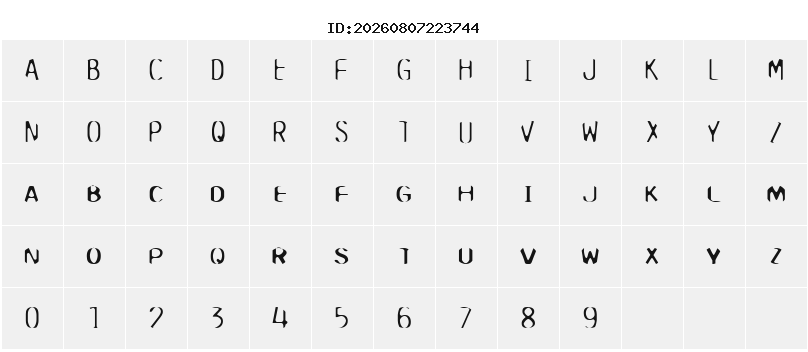
Pure Preview
• Font Name: Pure
• Full Font Name: Pure-CircuitCap
• PostScript Name: Pure-CircuitCap
About Pure.ttf
Pure.ttf is a modern, elegant sans-serif font designed for ultimate readability and visual harmony. Perfect for branding, headlines, web design, and print materials.